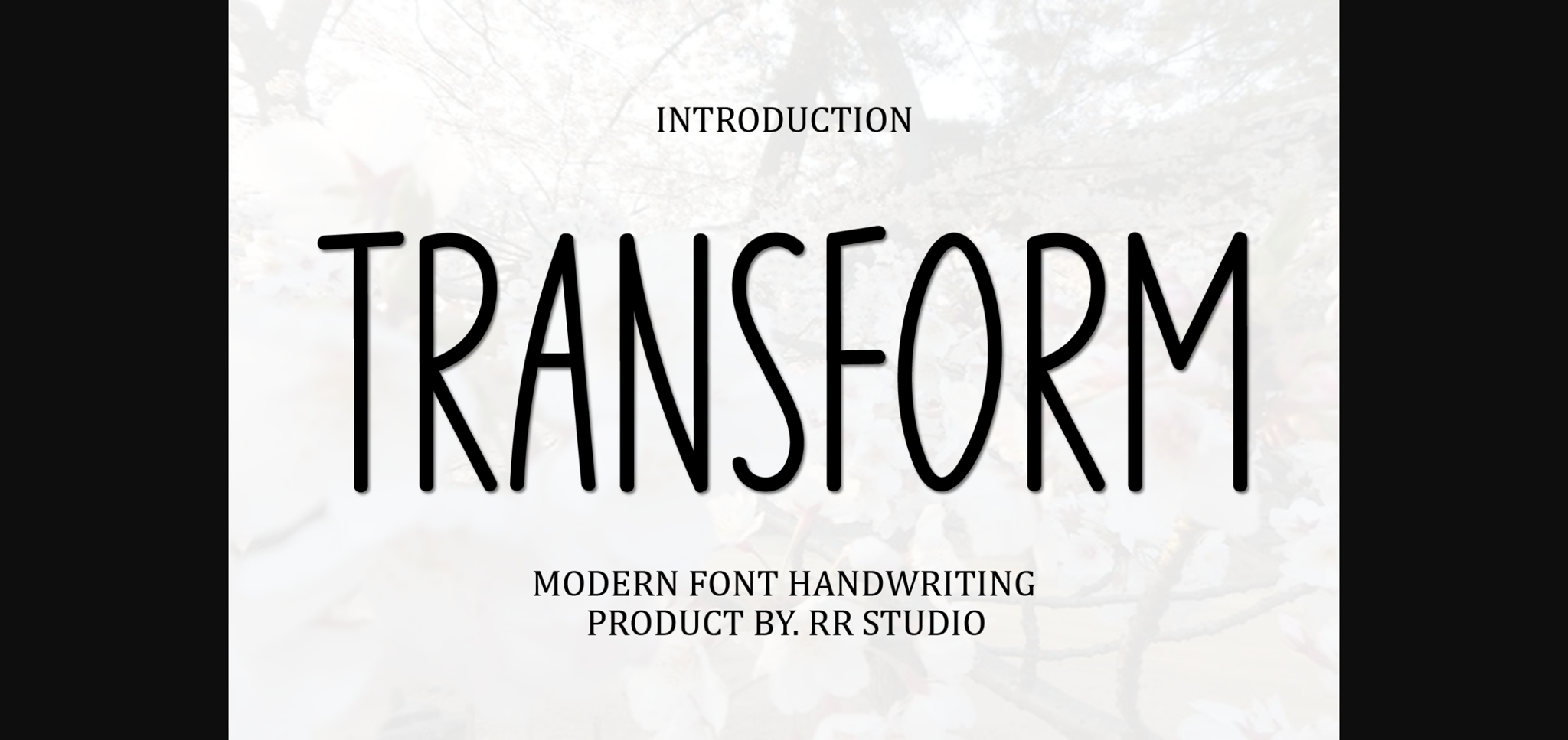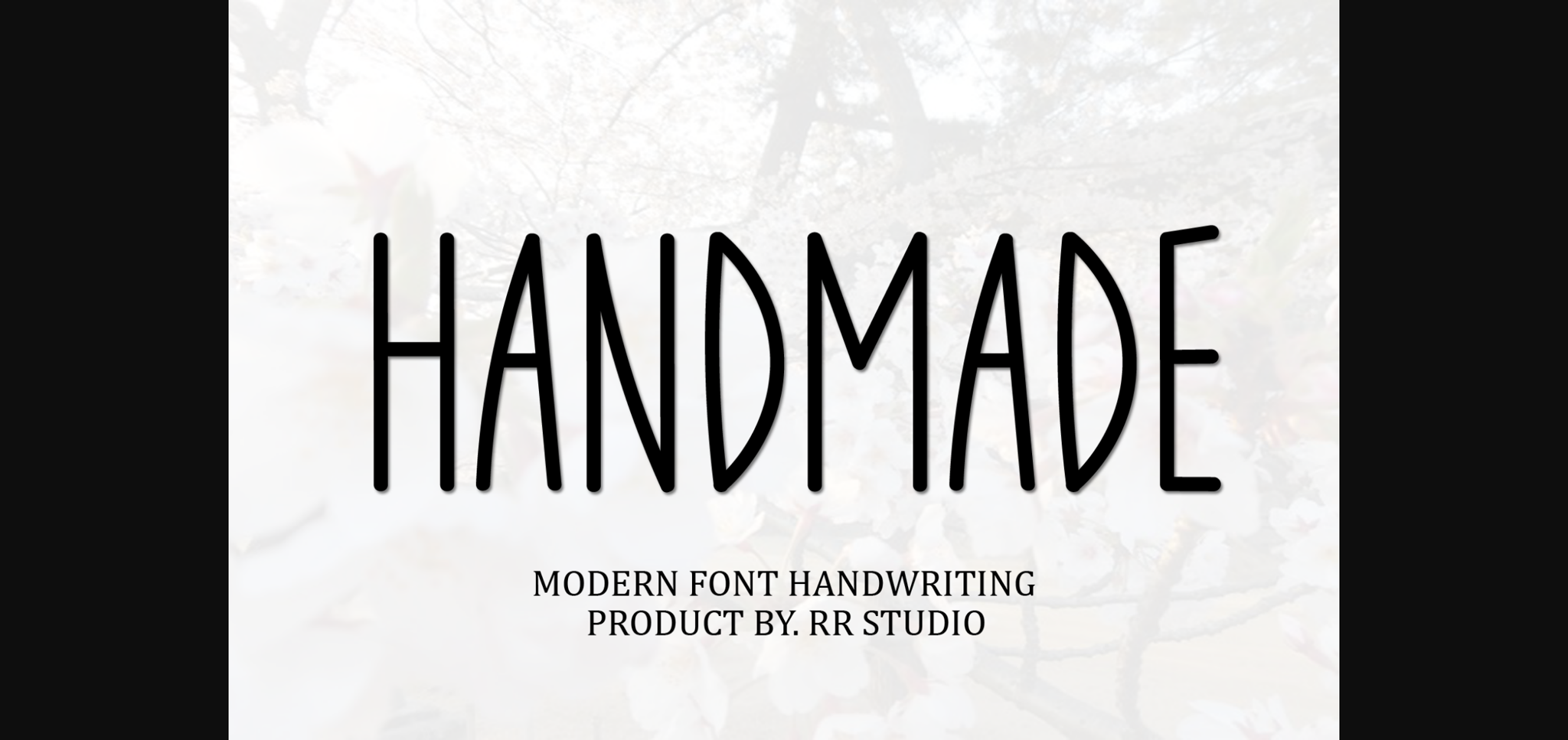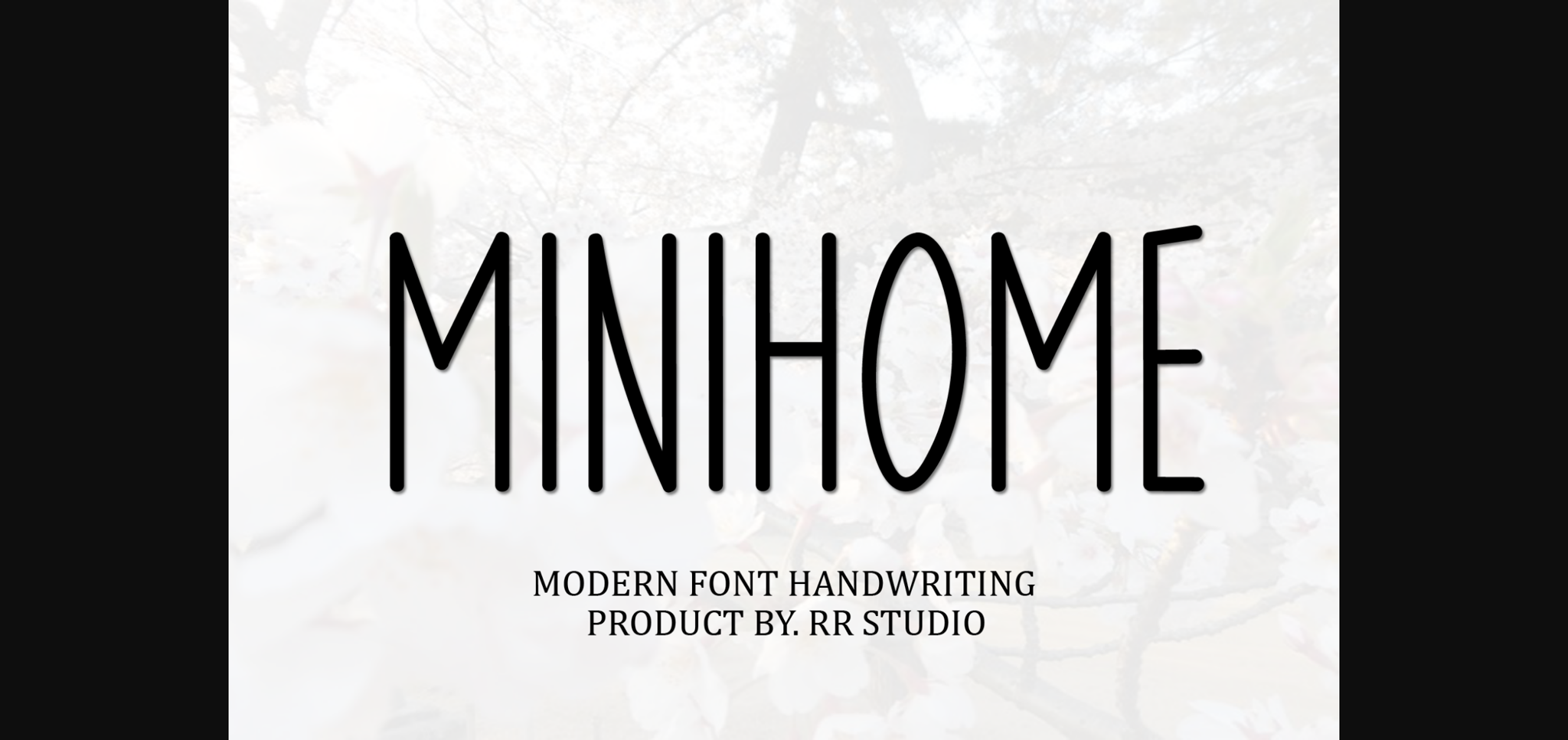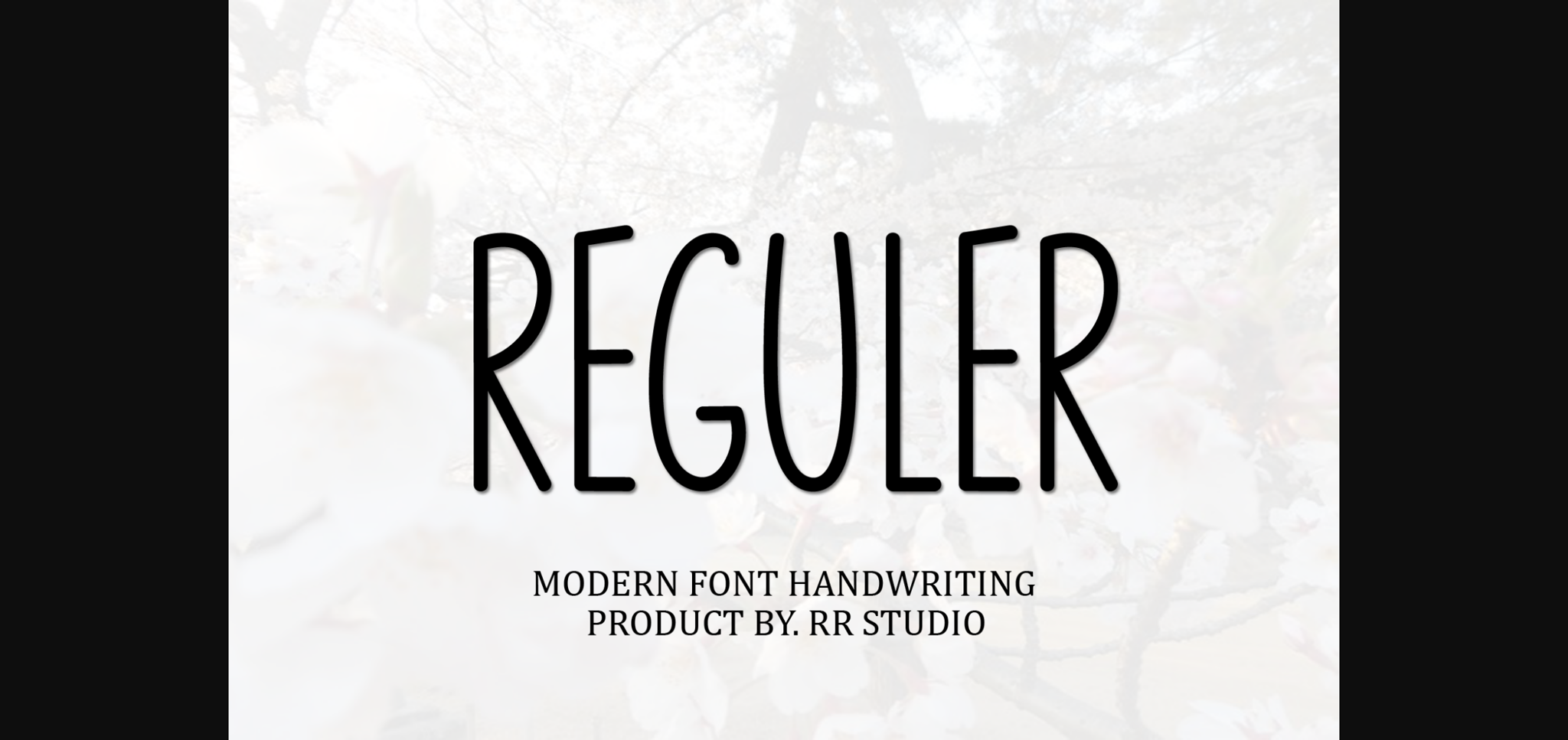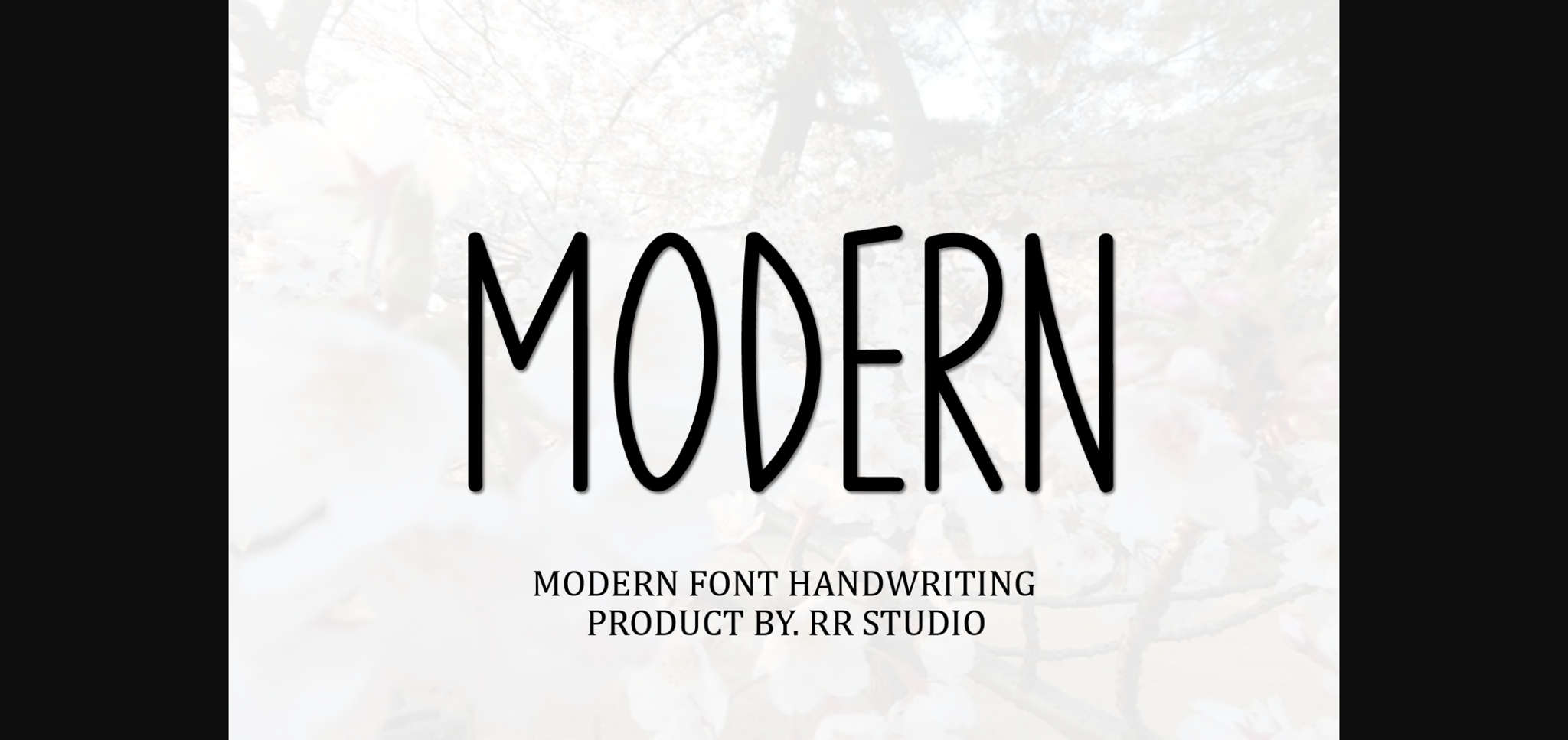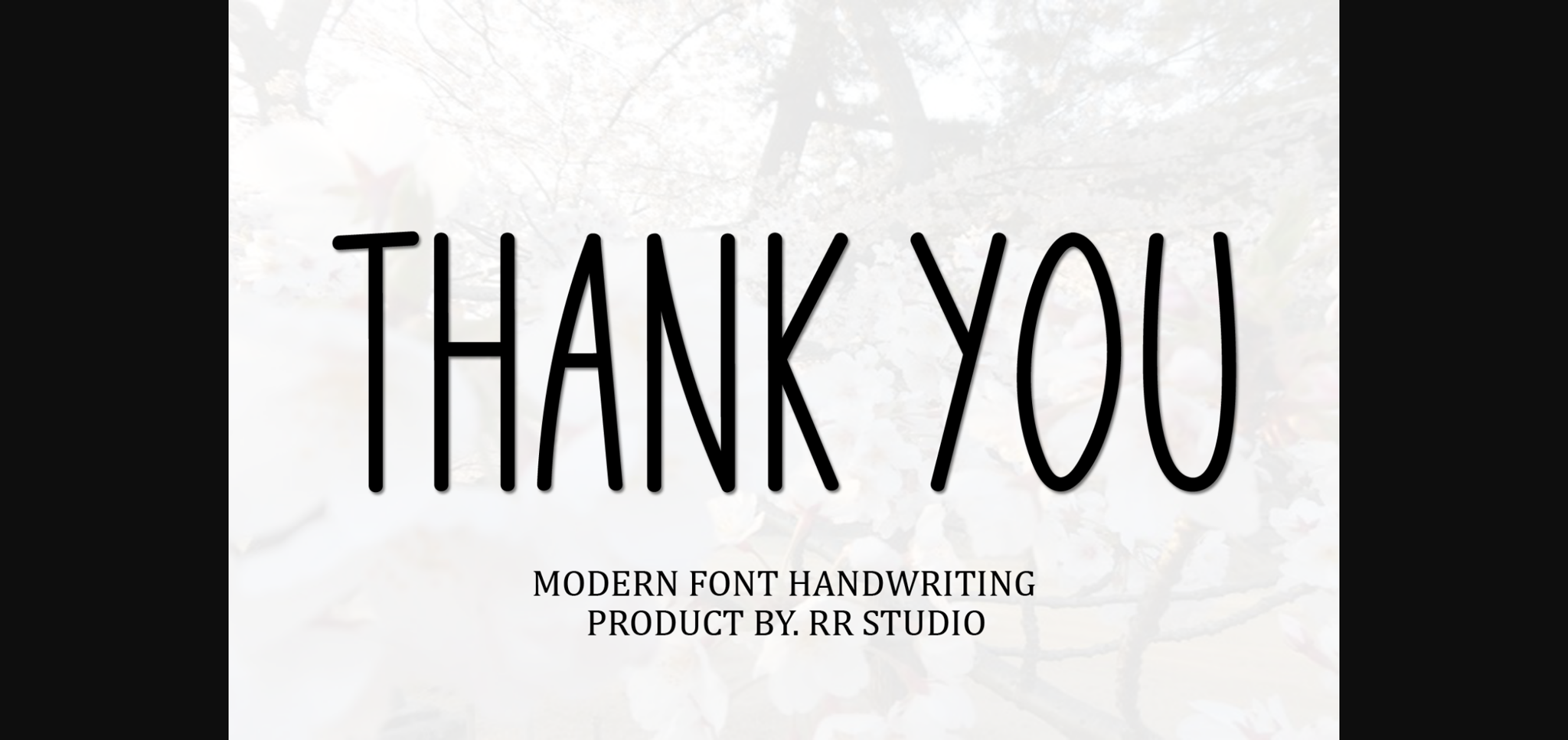
Transform Font
About Transform Font
Transform is a straightforward and tidy sans-serif font that embodies simplicity and clarity. Its clean lines and balanced proportions make it perfect for various design applications, from body text in publications to headers on websites. Transform maintains readability while offering a modern and uncluttered aesthetic for your projects.